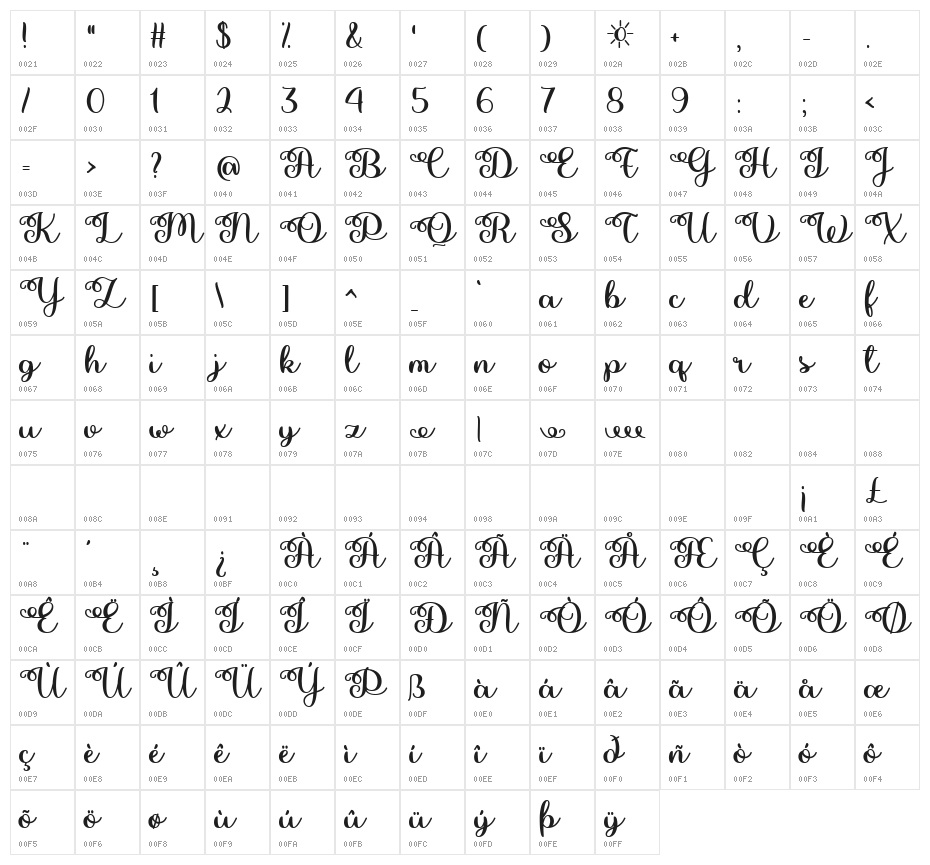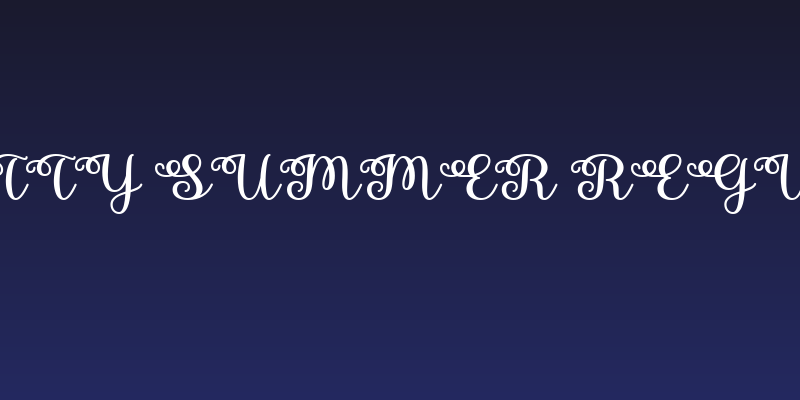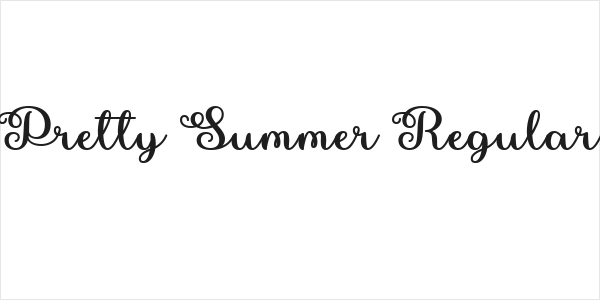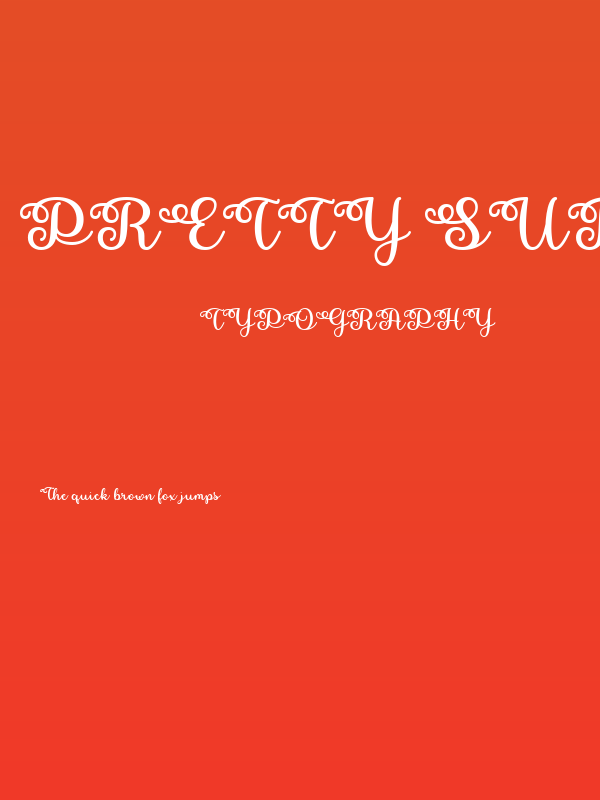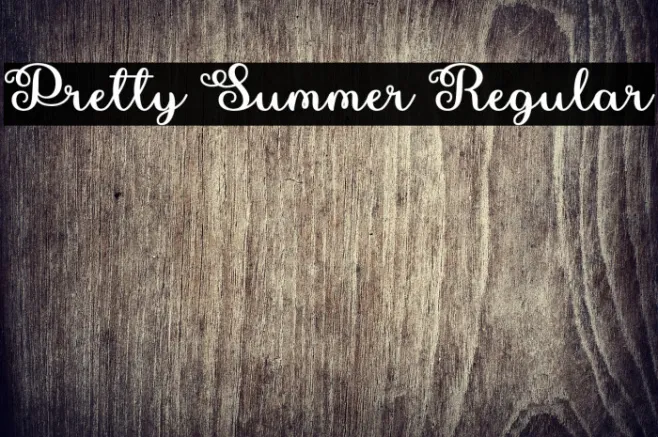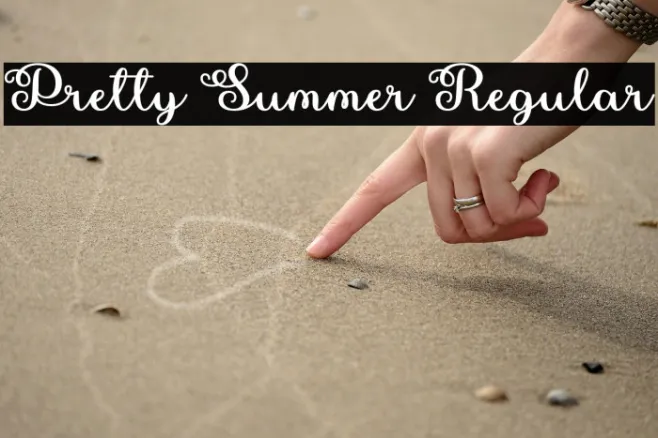
Pretty Summer Regular Font
Pretty Summer Regular Description
This font exudes a playful and whimsical charm with its decorative script style. The uppercase letters are adorned with elegant swirls and loops, adding a touch of sophistication and flair. The lowercase letters maintain a smooth and flowing appearance, enhancing readability while retaining a sense of elegance. The numerals are bold and slightly rounded, complementing the overall style. Special characters are creatively designed, featuring unique embellishments that align with the font's decorative theme. This font is perfect for projects that require a touch of creativity and elegance.
| Use Case | Logos, Invitations, Decorative Text |
| Proposed Projects | Ideal for wedding invitations, greeting cards, branding, and creative design projects. |